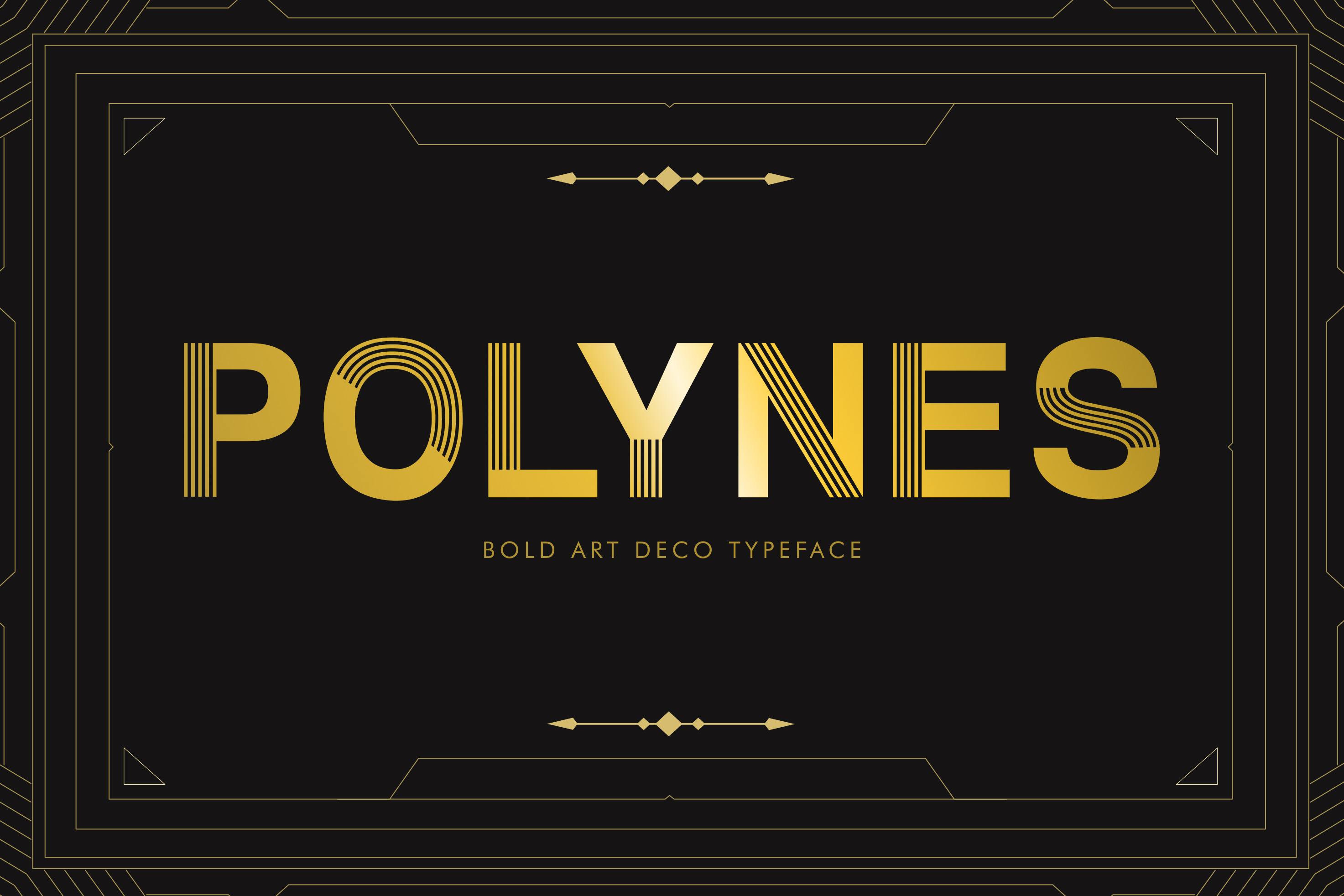
Polynes art deco font
Polynes is a font inspired by art deco style. Perfect for posters, invitations, & more. Purchase includes .ttf, otf, and woff file.